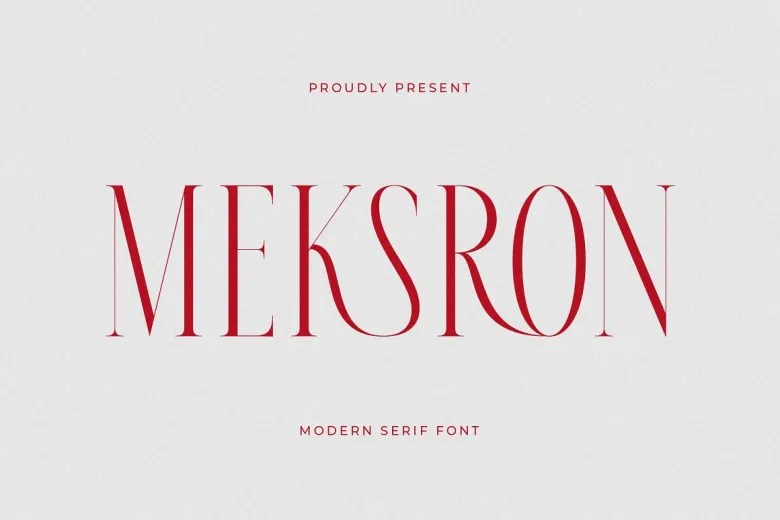
Meksron Font
Meksron by Letterena is a modern serif font that effortlessly combines elegance with contemporary design. Perfect for a wide range of applications, it shines in logo design, branding, and homeware projects. Its versatility extends to product packaging, mugs, posters, quotes, T-shirts, shopping bags, book covers, name cards, invitations, greeting cards, labels, watermarks, and photography.
Meksron Font brings a touch of luxury and sophistication to any project that demands a refined serif style.